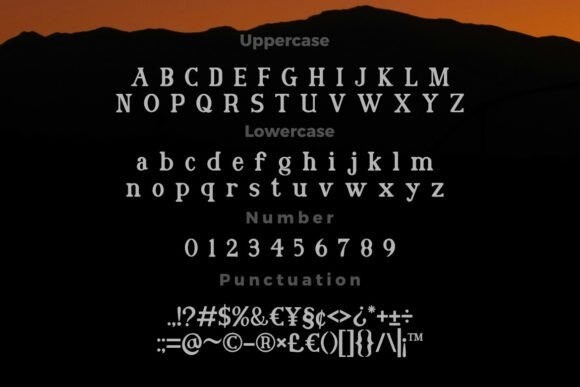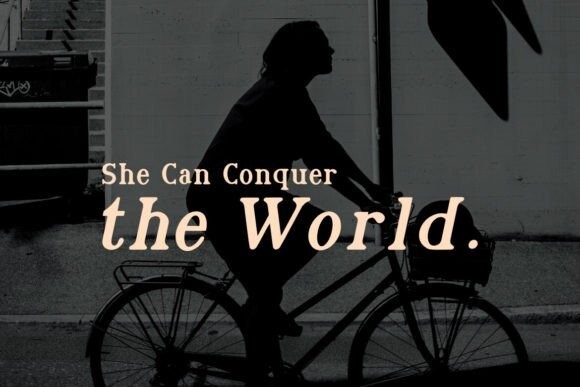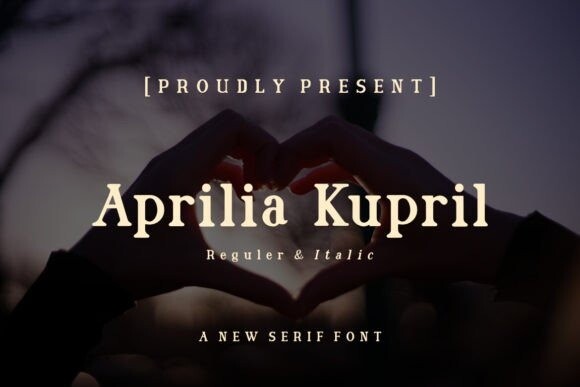
Aprilia Kupril Font
Aprilia Kupril Font is a refined serif font that blends elegance with modernity. Its sleek lines and balanced proportions exude sophistication, making it ideal for editorial design, branding, and upscale invitations. With its timeless appeal, Aprilia Kupril brings a touch of class to any typographic project.